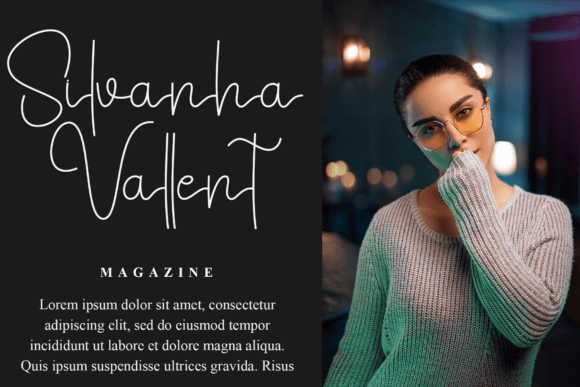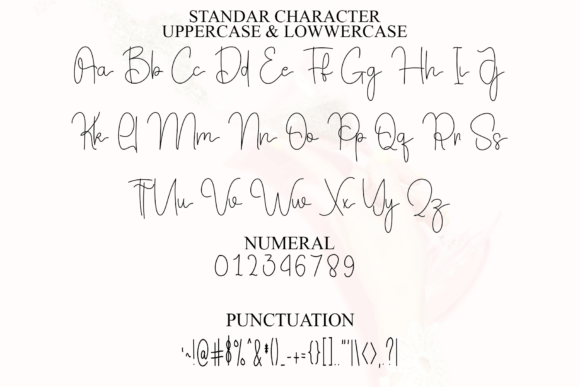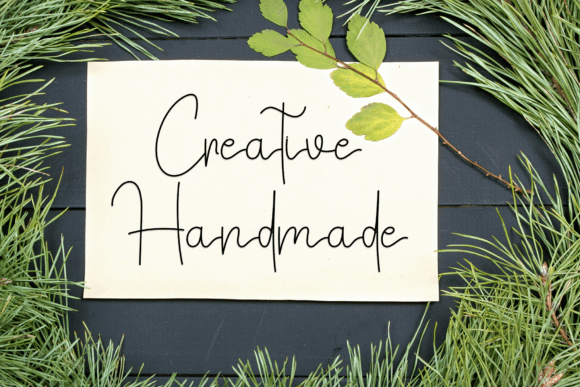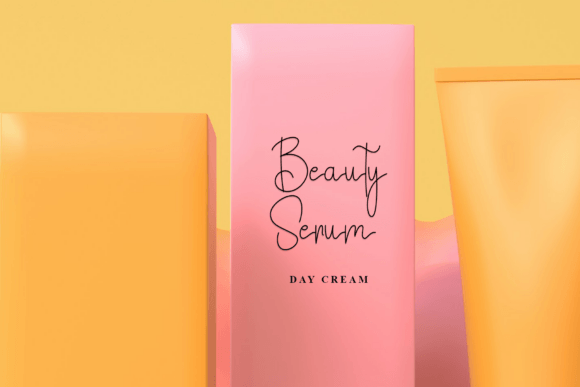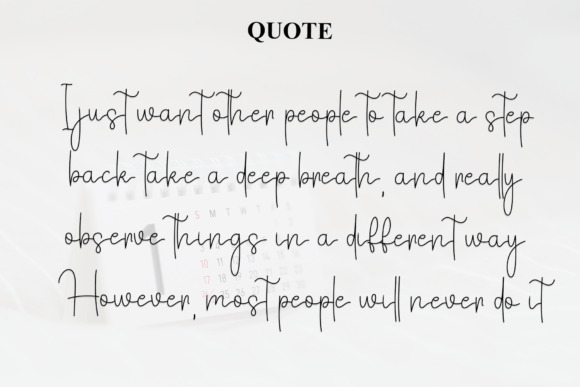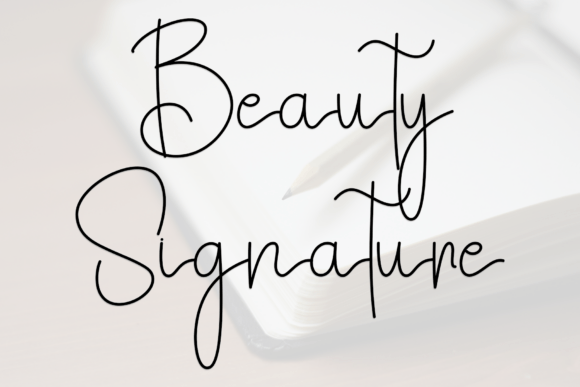
Elevate Your Designs with Creative Signature Font: A Timeless Classic
Are you tired of using the same old fonts in your designs? Do you want to add a touch of elegance and sophistication to your projects? Look no further than the Creative Signature Font, a stunning and versatile typeface that is sure to take your designs to the next level. Inspired by timeless classic calligraphy, this font is perfect for designers and crafters who want to add a touch of luxury and refinement to their work.
A Contemporary Take on Classic Calligraphy
Creative Signature Font is a beautifully crafted typeface that combines the best of traditional calligraphy with a modern, contemporary twist. With its impeccable form and balanced design, this font is perfect for a wide range of projects, from wedding invitations and stationery to branding and advertising. Whether you’re looking to create a sophisticated and elegant look or a more playful and whimsical feel, Creative Signature Font is the perfect choice.
Key Features of Creative Signature Font
- PUA Encoded: Creative Signature Font is PUA encoded, which means that you can access all of the amazing glyphs and ligatures with ease. This makes it easy to customize your designs and add unique touches to your projects.
- Balanced and Varied: With its balanced and varied design, Creative Signature Font is perfect for creating beautiful and harmonious designs. The font features a range of glyphs and ligatures, allowing you to create unique and eye-catching designs.
- Elegant and Sophisticated: Creative Signature Font is the perfect choice for designers and crafters who want to add a touch of elegance and sophistication to their designs. The font’s classic calligraphy style and contemporary twist make it perfect for a wide range of projects.
Why Choose Creative Signature Font?
So why choose Creative Signature Font over other fonts on the market? Here are just a few reasons why this font stands out:
- Unique and Versatile: Creative Signature Font is a unique and versatile typeface that can be used for a wide range of projects. Whether you’re creating wedding invitations, branding materials, or social media graphics, this font is perfect for adding a touch of elegance and sophistication.
- Easy to Use: With its PUA encoding, Creative Signature Font is easy to use and customize. You can access all of the amazing glyphs and ligatures with ease, making it simple to create beautiful and unique designs.
- High-Quality Design: Creative Signature Font is a high-quality typeface that is designed to deliver exceptional results. With its balanced and varied design, this font is perfect for creating beautiful and harmonious designs.
How to Use Creative Signature Font
Using Creative Signature Font is easy. Here are a few tips to get you started:
- Pair it with Other Fonts: Creative Signature Font pairs perfectly with other fonts, making it easy to create beautiful and harmonious designs. Try pairing it with a clean sans-serif font for a modern and sophisticated look.
- Experiment with Glyphs and Ligatures: With its PUA encoding, Creative Signature Font offers a range of glyphs and ligatures that you can use to customize your designs. Experiment with different combinations to create unique and eye-catching designs.
- Use it for a Wide Range of Projects: Creative Signature Font is perfect for a wide range of projects, from wedding invitations and stationery to branding and advertising. Don’t be afraid to get creative and try it out for different projects.
In conclusion, Creative Signature Font is a stunning and versatile typeface that is perfect for designers and crafters who want to add a touch of elegance and sophistication to their designs. With its impeccable form, balanced design, and PUA encoding, this font is easy to use and customize. Whether you’re creating wedding invitations, branding materials, or social media graphics, Creative Signature Font is the perfect choice. So why wait? Download Creative Signature Font today and take your designs to the next level!